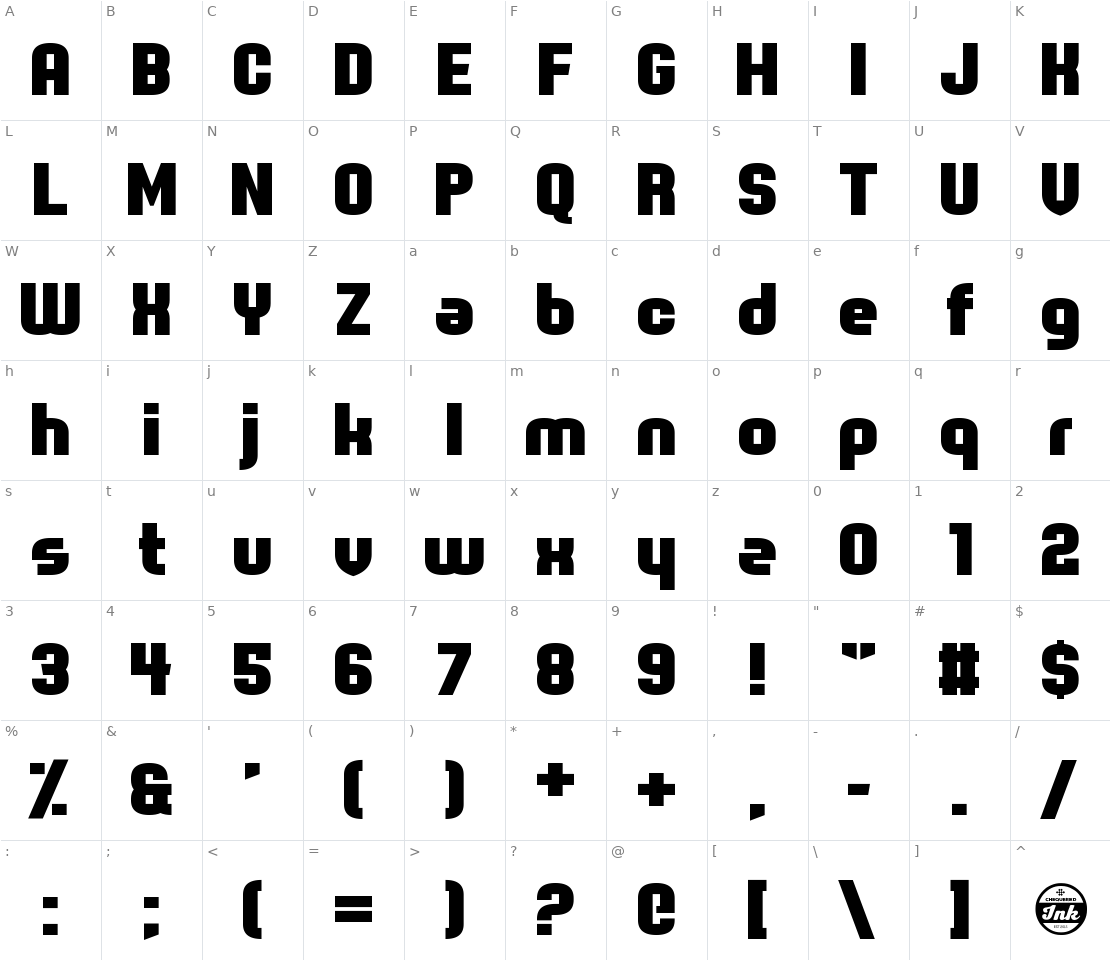
Spot Monkey
Spot Monkey is a heavy, condensed geometric display face from Chequered Ink with dense, blocky letterforms that pack a lot of visual punch into tight spaces. The bold proportions and rigid structure give it an assertive, modern character that works naturally for headlines, posters, and branding where you need something that holds its ground. There's nothing subtle about it, and that's the point.